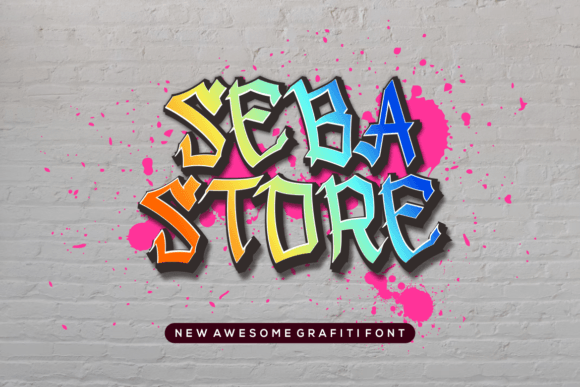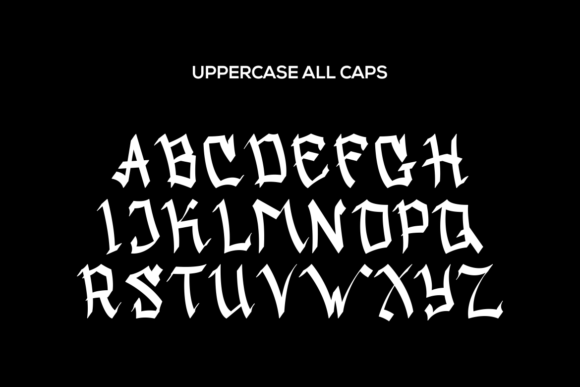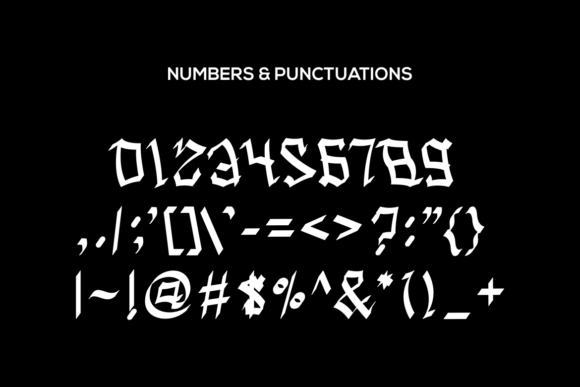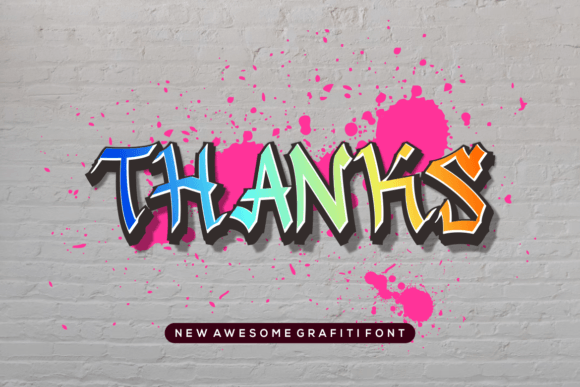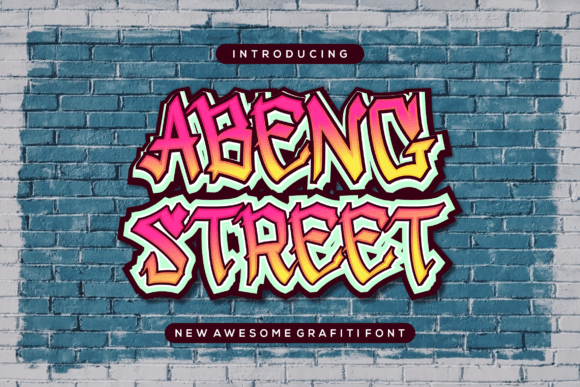
The Ultimate Guide to Abeng Street Font: Unleash Your Creativity
I’ll never forget the time I was working on a project for a client who wanted a bold, eye-catching font to match their edgy brand. I scoured the internet for hours, trying out font after font, but nothing seemed quite right. That was until I stumbled upon Abeng Street Font. This cool, modern, graffiti-style font completely transformed my design and left me wondering how I ever managed without it! 😊
Abeng Street Font Review: The Good and the Great
So, what makes Abeng Street Font so special? Let’s dive into the details!
• ✨ Unique and edgy design: Abeng Street Font is perfect for designs that need a bold, modern twist.
• ✅ Highly versatile: This font can be used for a wide range of projects, from logos and branding to posters and social media graphics.
• 🎨 Graffiti-style charm: The font’s playful, hand-drawn feel adds a touch of personality to any design.
The Not-So-Perfect: A Few Quirks to Consider
While Abeng Street Font is an amazing addition to any design project, there are a few things to keep in mind:
• 🤔 Legibility at small sizes: As with many graffiti-style fonts, Abeng Street can be a bit tricky to read at very small sizes. Be sure to test it out before finalizing your design.
• ⚠️ Limited formal applications: This font is perfect for creative, edgy projects, but may not be the best choice for more formal or traditional designs.
One of the best things about Abeng Street Font is its support for OpenType features and glyphs. These allow you to customize your text with:
• Ligatures: Combine letters for a unique look.
• Stylistic alternates: Swap out letters for different styles.
• Glyphs: Add special characters and symbols to your text.
The Story Behind Abeng Street Font
Abeng Street Font was inspired by the vibrant street art scene in urban cities. Its creator, a young designer with a passion for graffiti, wanted to capture the energy and personality of street art in a digital font. The result is a unique and edgy font that’s perfect for designers who want to add a touch of urban flair to their work.
What type of projects is Abeng Street Font best suited for? Abeng Street Font is perfect for creative, edgy projects like logos, branding, posters, and social media graphics.
Is Abeng Street Font available in different weights or styles? Currently, Abeng Street Font is available in a single weight, but its versatility and range of OpenType features make it easy to adapt to different design needs.